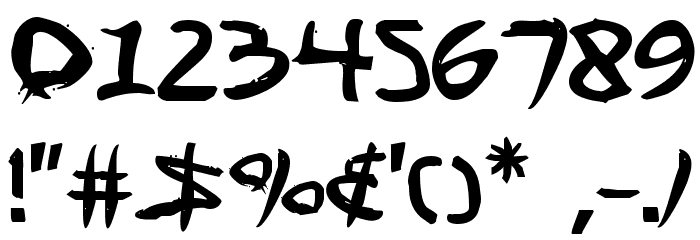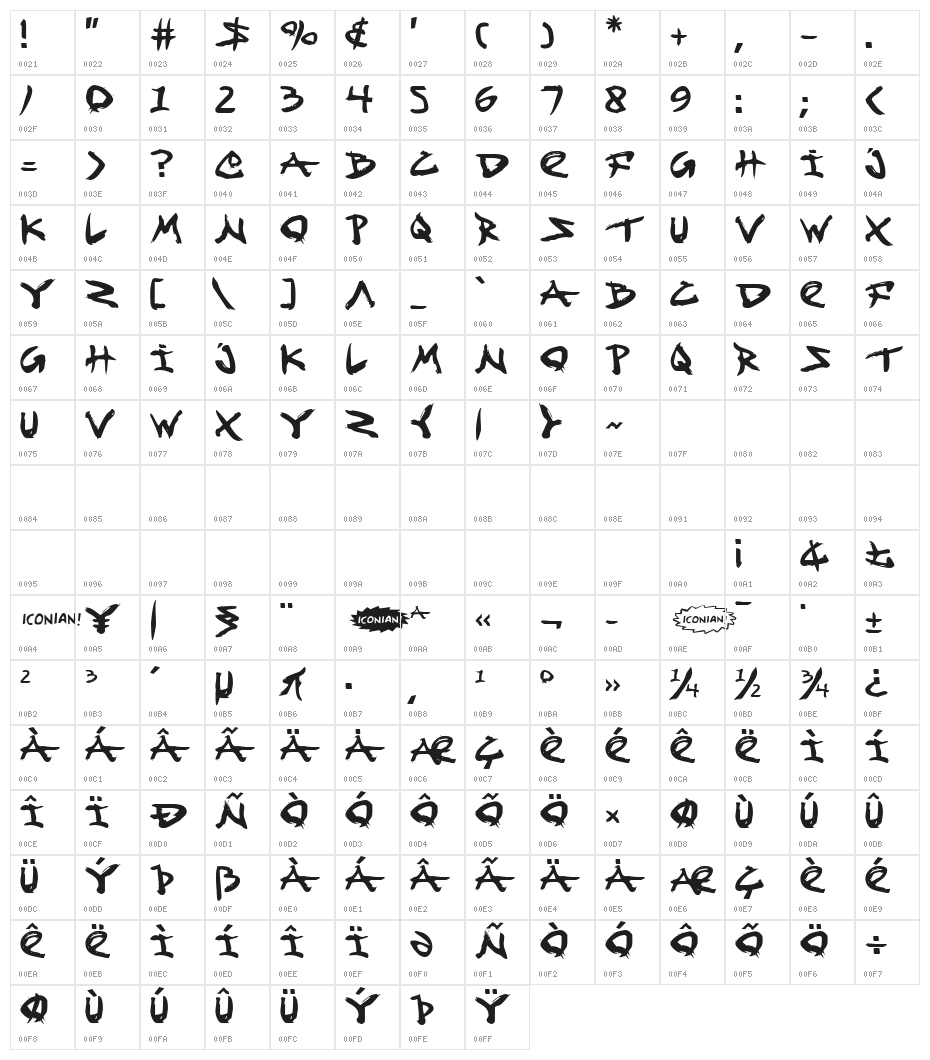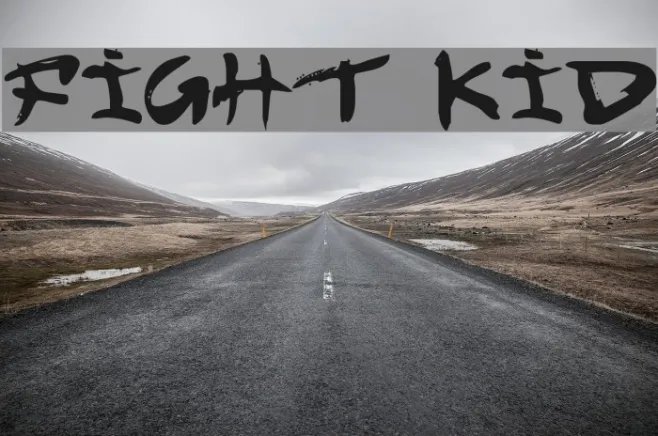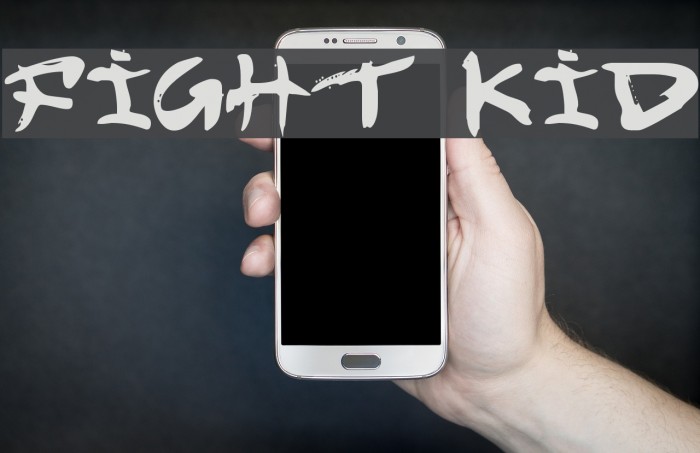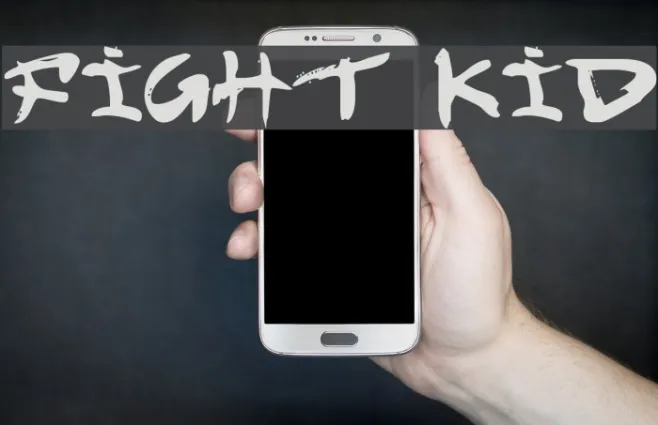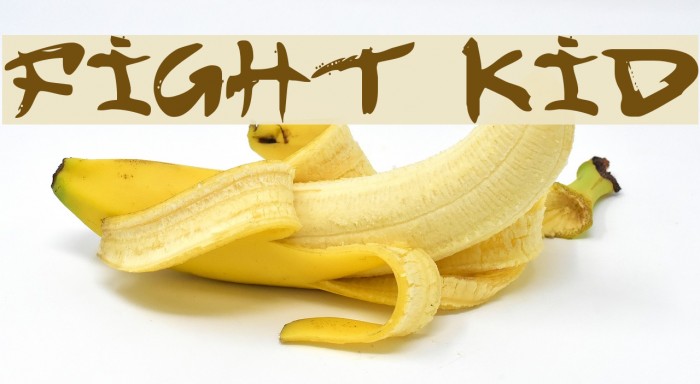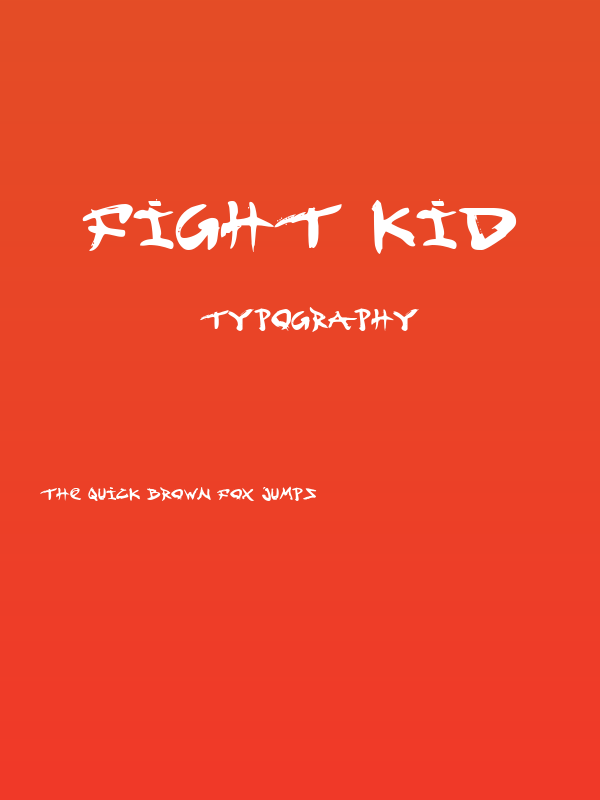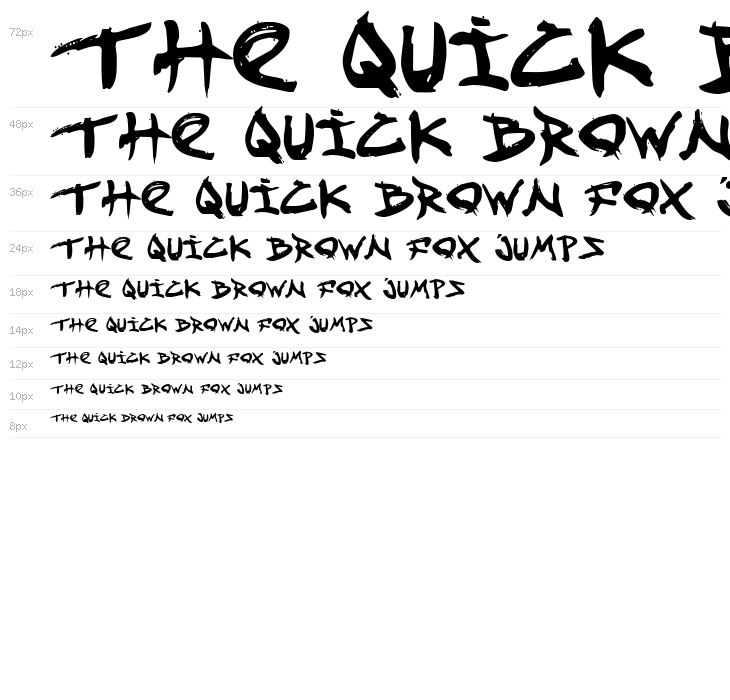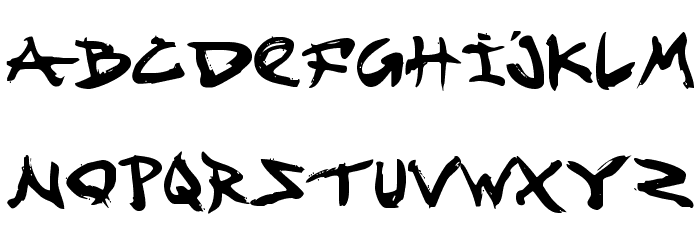
Fight Kid Font
Fight Kid Description
This font exudes a bold and energetic style, characterized by its brush-like strokes and dynamic, irregular forms. The letters have a hand-drawn appearance, with varying thicknesses that add a sense of movement and intensity. The uppercase and lowercase letters maintain a consistent style, with sharp angles and a slightly aggressive flair. Numbers and special characters follow the same aesthetic, ensuring a cohesive look across all elements. The font's unique style makes it stand out, suitable for projects that require a touch of edginess and creativity.
| Overall Style | Modern, Energetic |
| Use Case | Logos, Posters, Headlines |
| Proposed Projects | Ideal for streetwear branding, music album covers, graffiti art, and action-themed posters. |